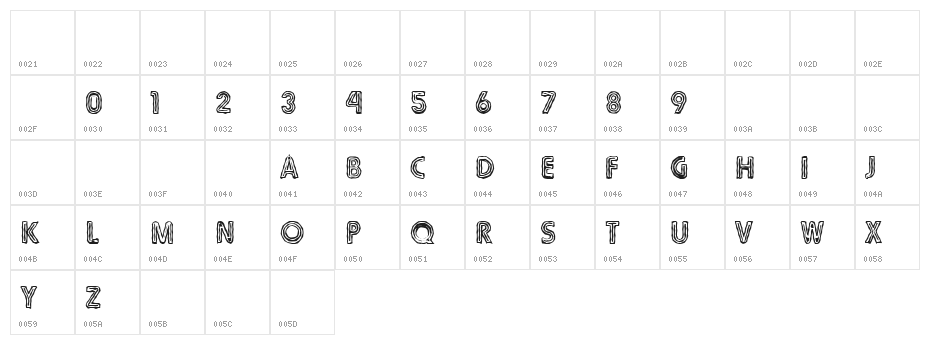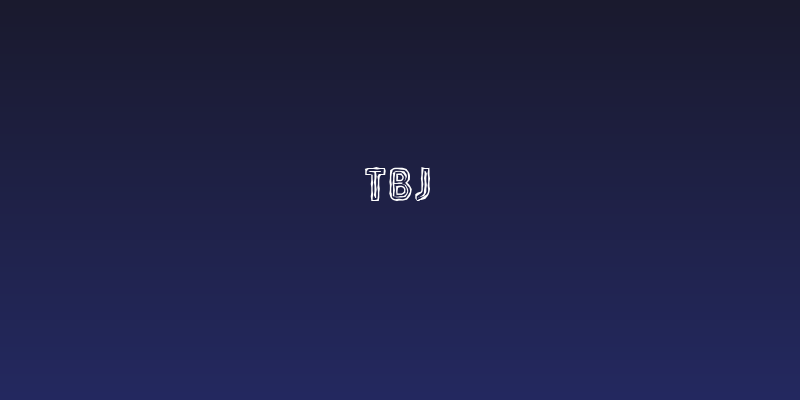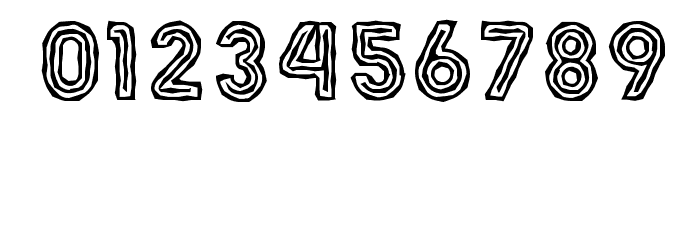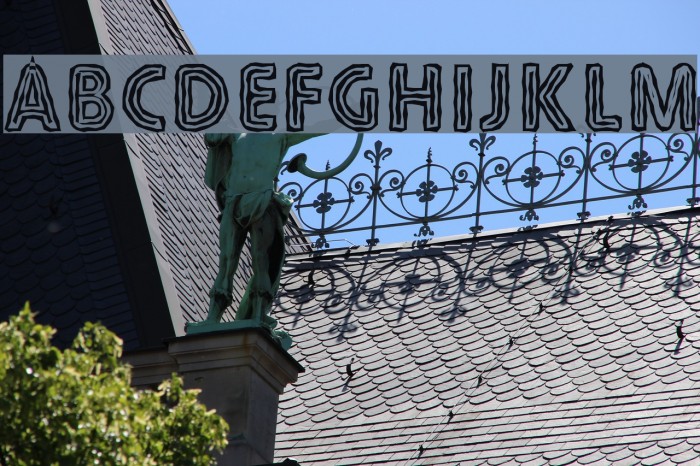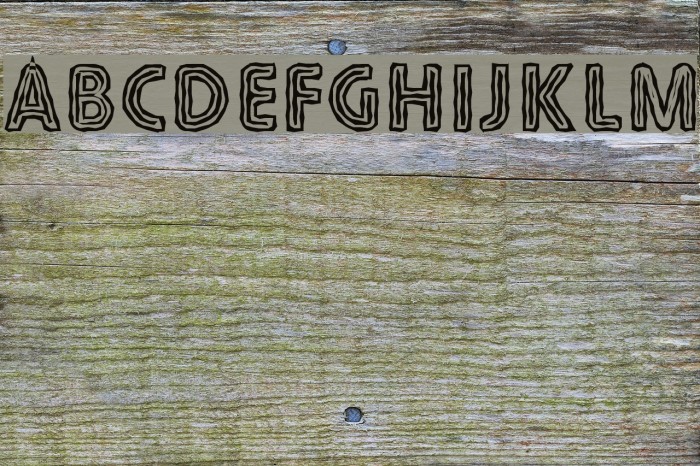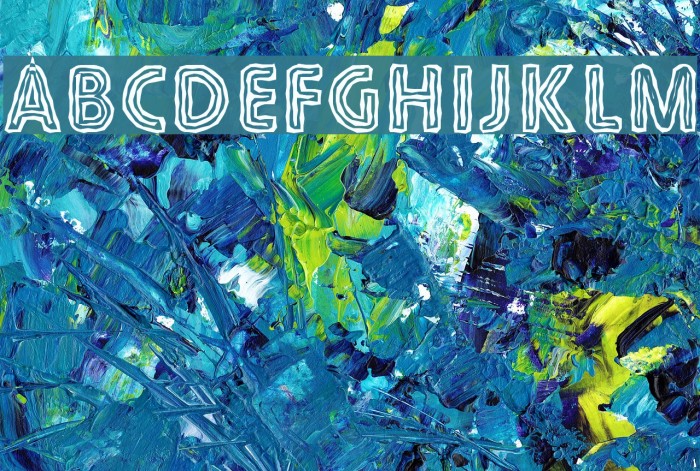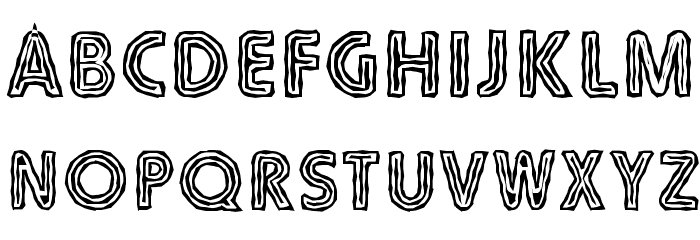
TBJ Font
TBJ Description
This font features a bold, decorative style with a hand-drawn appearance. Each character is outlined with a thick, uneven stroke that gives it a textured, organic feel. The uppercase letters are consistent in height and width, creating a uniform look across the alphabet. The numbers follow the same design principles, maintaining the decorative outline that adds a playful and artistic touch. This font is ideal for projects that require a unique and eye-catching typeface, such as posters, headlines, or branding materials. Its distinctive style makes it stand out, while the clear, bold lines ensure readability.
| Proposed Projects | Ideal for posters, headlines, branding, and artistic projects. |